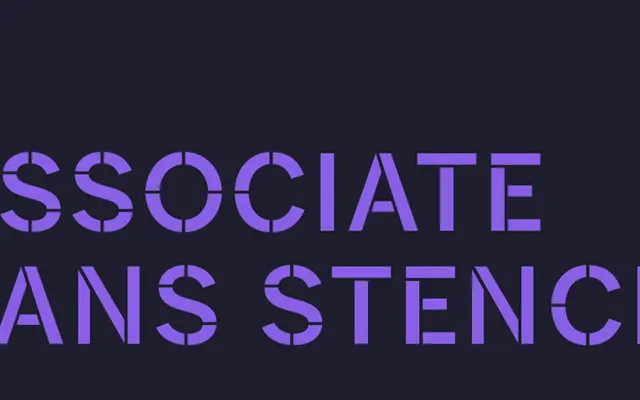
Associate Sans Stencil
A stencil variant of the Associate Sans family, available in five weights each with a matching italic.
Associate Sans Stencil applies stencil interruptions to the Associate Sans skeleton, producing ten styles across five weights from Extralight to Bold. Each weight includes an italic, giving the family more range than most stencil offerings. It sits alongside Associate Mono, Associate Slab and Associate Slab Stencil as part of a broader type system.
A stencil variant of a sans-serif family, where the interrupted strokes and cutouts define it as a display stencil rather than a conventional sans-serif.